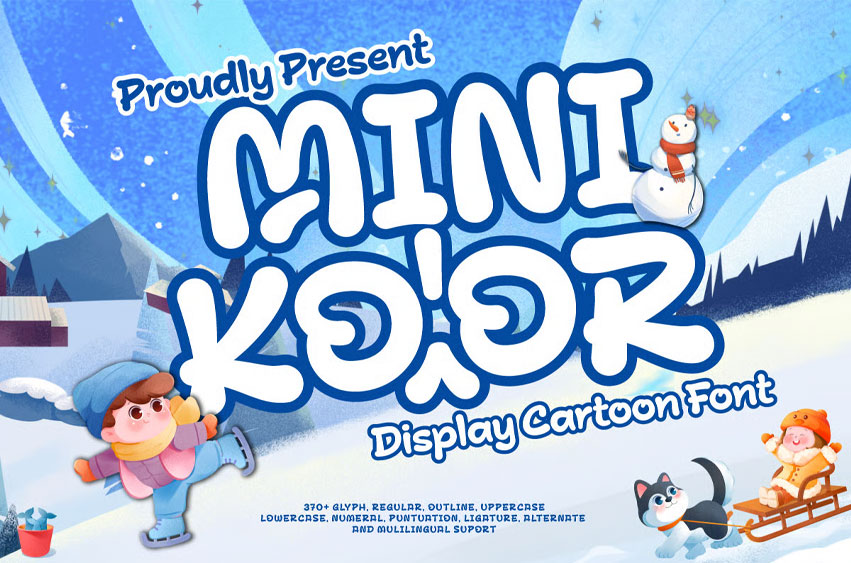
Mini Koor Font is a fun and cheerful cartoon display font that brings life and laughter to any design. With its bold shapes, rounded edges, and playful personality, Mini Koor is perfect for children’s books, comic titles, playful branding, educational materials, birthday invitations, and animated content.
Its hand-drawn charm and easy-to-read characters make it especially suited for projects that aim to entertain and engage younger audiences. Whether you’re designing for a toy store, a school project, or a colorful app interface, Mini Koor adds a burst of creativity and joy.
Let your imagination run wild—Mini Koor is here to make your design bright, fun, and full of character!